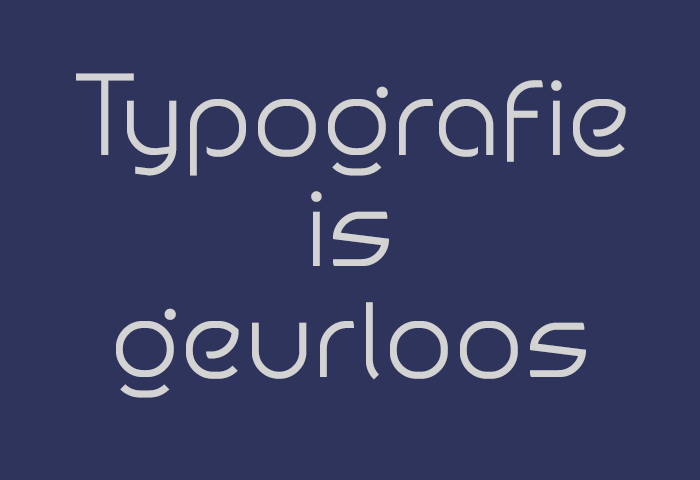
BOUWHUIS - 'Bauhaus'-modernism inspired minimalist geometric sans
So here is yet another venture into the modernist minimalism aesthetics of the previous century.
This Font losely draws on the basic concept for the 'Universal Type' that was originally designed by Bauhaus student Herbert Bayer.
It's basically a hugely inspired tribute to Herbert Bayer's several forms of ―'Universal'.
But I want to be clear on the fact that this isn't a revival of the original alphabet or anything along those lines for that matter.
Instead it is a intermingling personal interpretation of his multiple works and ideas. Attempting to merge this recollection of Bayer's rational 'functionalist'-approach towards combining aesthetics and function, as by which he is answering to the 'Bauhaus'-philosophy and the 'Form follows function'― design principle.
But besides being a 'inspired' recollection, still the main focus for this FontStruction was to come up with this personalized and stylistic derivative version that pays homage to various of his original work. Unifying the various characteristic Bayer idea's-n-bits within my personal visual representation of the general concept into a new piece.
For it's primary style-concept I envisioned BOUWHUIS being something fresh and somewhat different from the gross majority of similar inspired works out there. This led to the decision for going with a more contemporary and modernized (― as oposed to modernist) style lettering.
In addition to that I pursued a much more vibrant and nuanced typographers sensitivity towards letterform calligraphy and decorative features.
Strong geometric core elements of the font make up for a expressive simplistic structural basic form and it has 'zero' stroke modulation for thickness.
It's regular weight combined with that predominant circular and square-based geometry of the letterforms result in this 'open', and overall ventilated characteristic of the design.
The typical crude appearance that usually comes with a strong geometric sans like this was compensated for in BOUWHUIS by the design's subtle deviations in form and the various decorative calligraphic letter-components.
Something that completely denied Bayer's principle in approach to modern typography and to create an "idealist typeface" was; The reintroduction of it's uppercase letters.
Part of Bayer's rationale was to simplify typesetting, strip all that he felt was unnecessary or the typeface had no need for in order to function, till there was not much more left than just the nearly bare-naked form.
It seems that unintentionally some innuendo of Art-Deco―flavoured hints also found their way into parts of this design.... ―Hmmmz
― but I think I like them, so no worries on behalf of that
As a little bonus topping it all off there is also a super tiny experimental lowercase caracter-set (X-Height=1 grid unit)